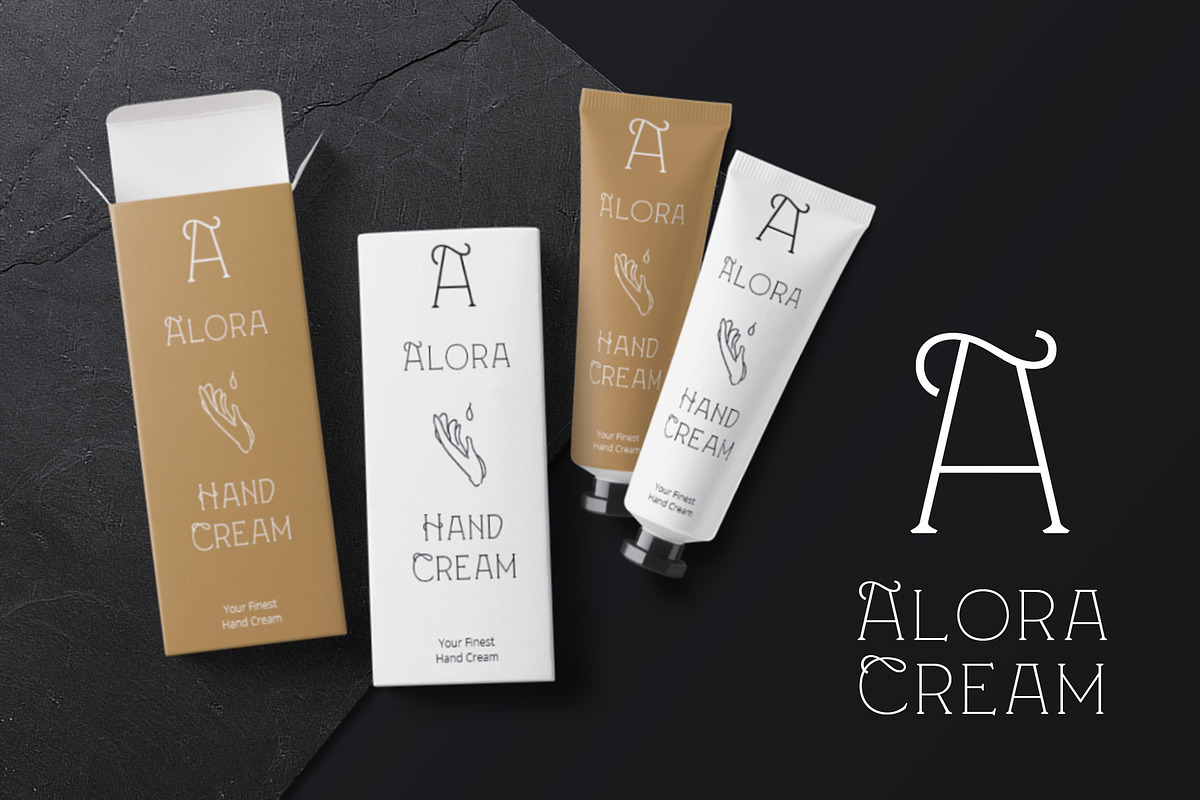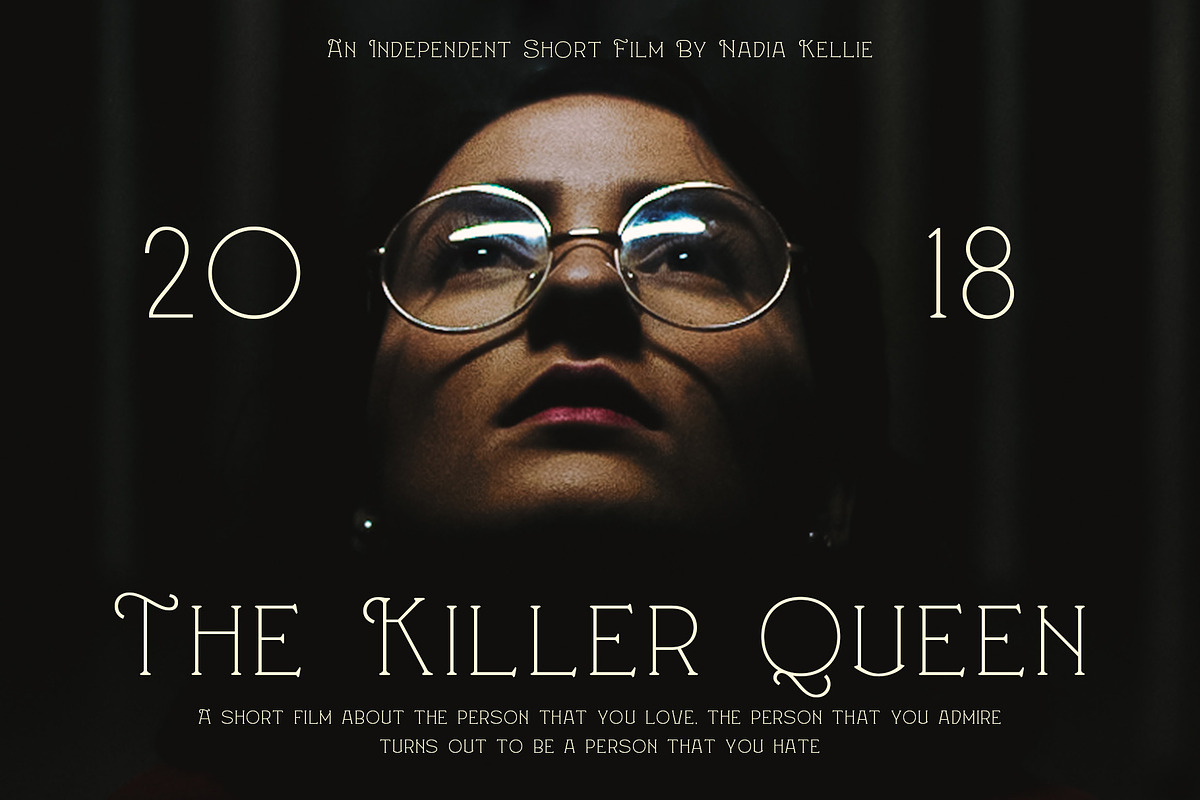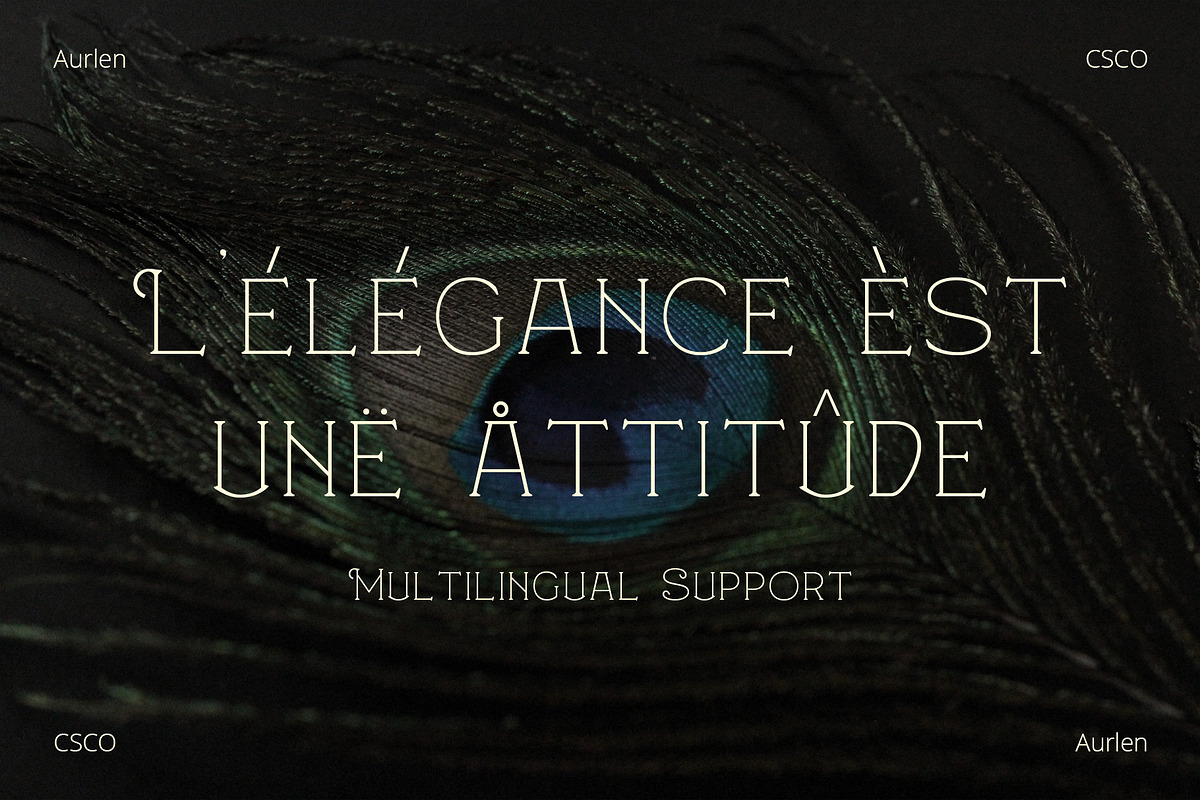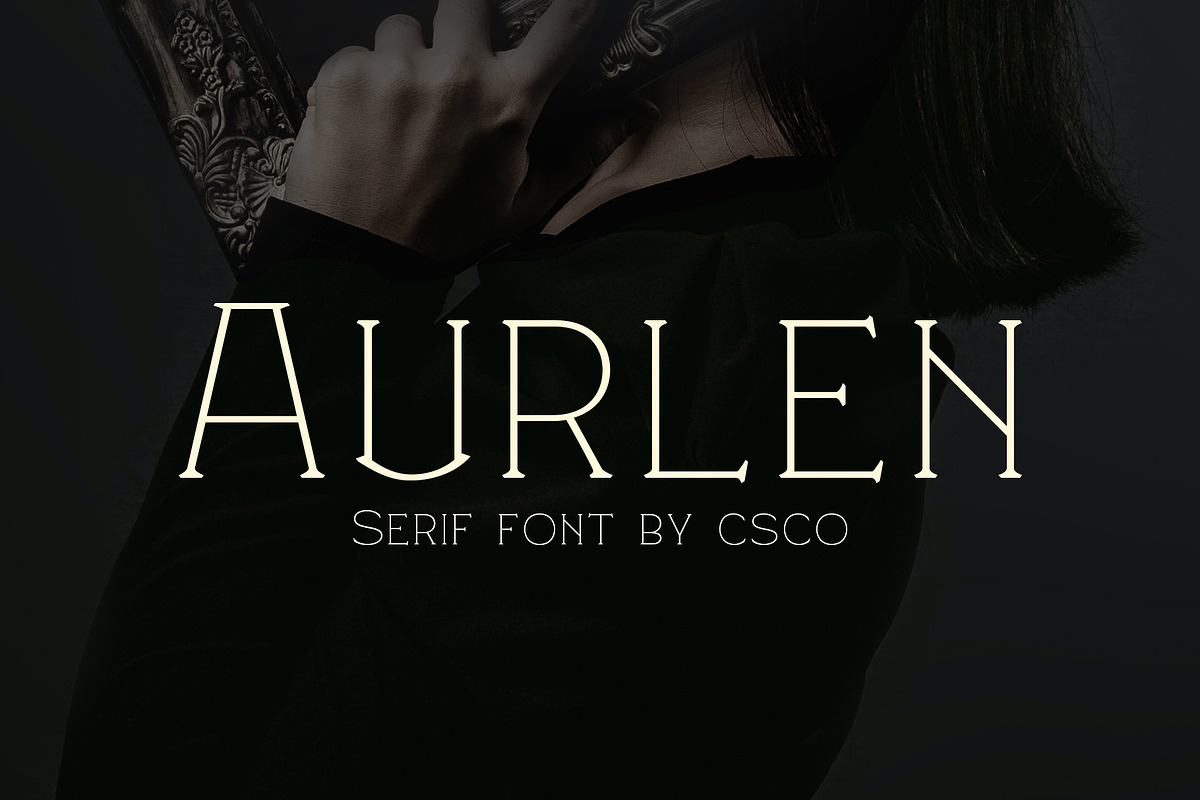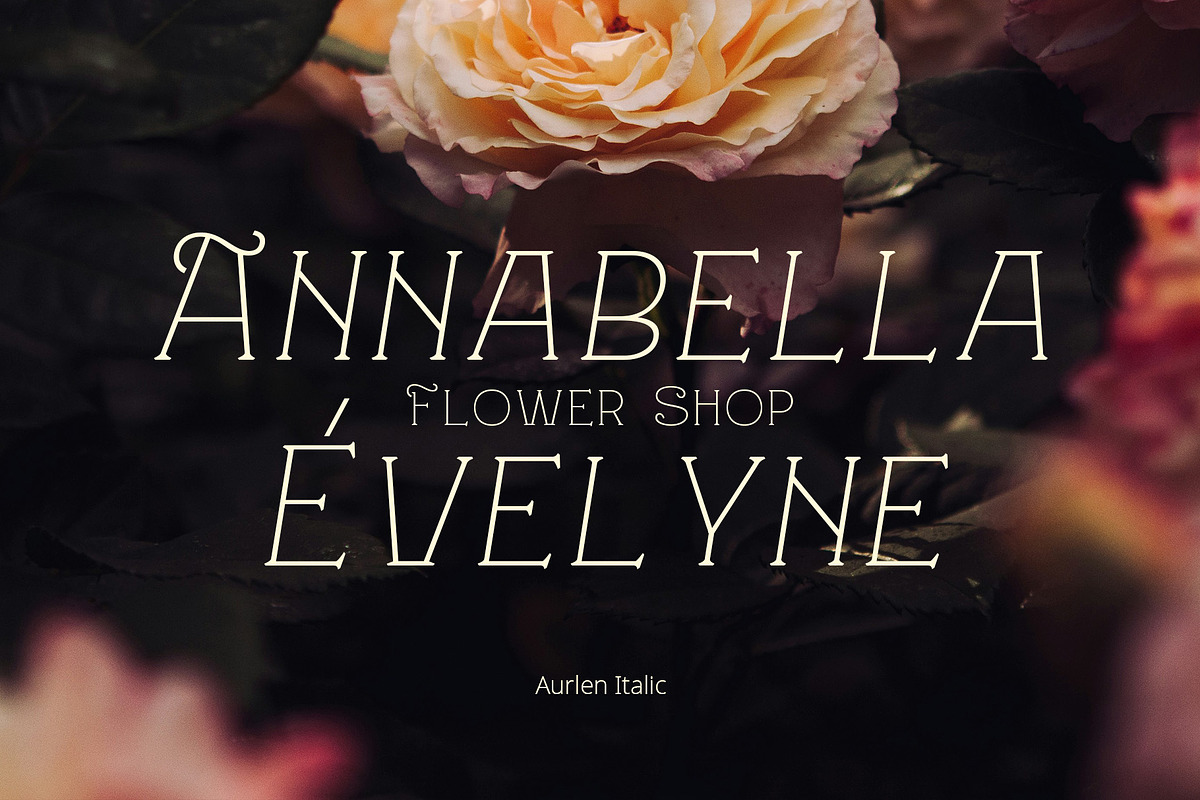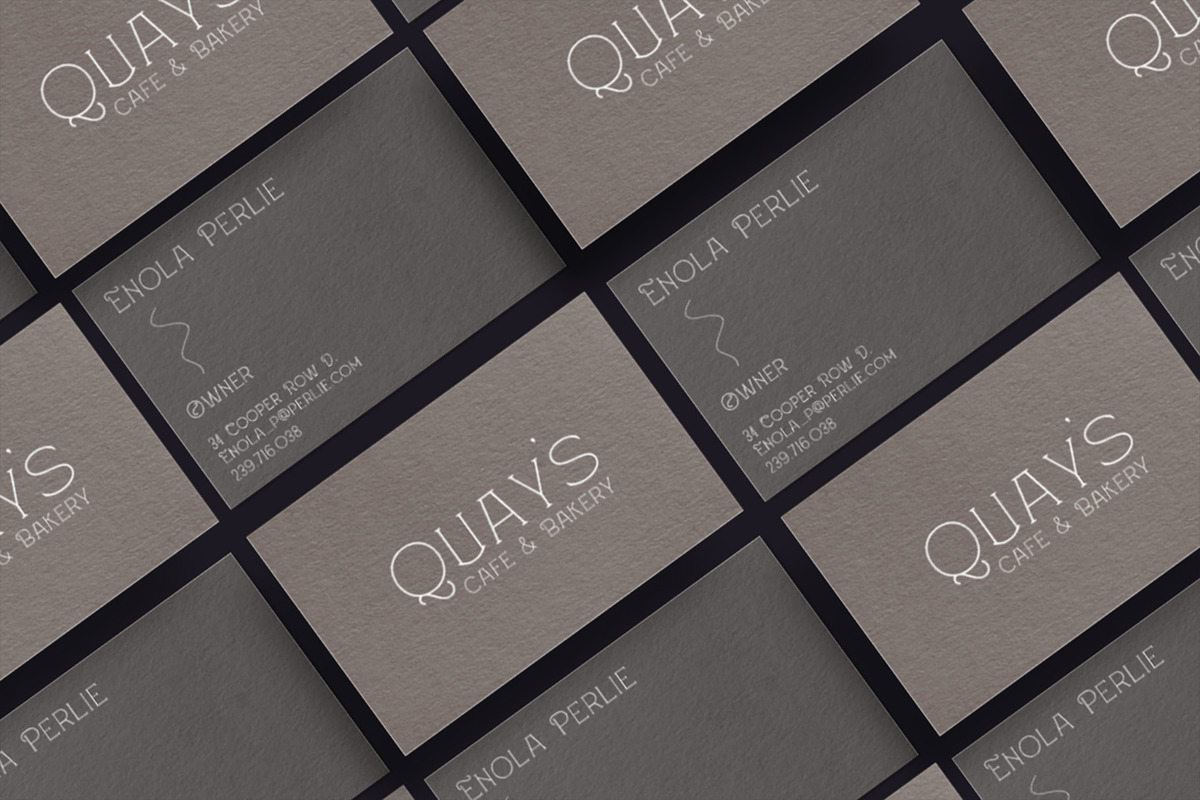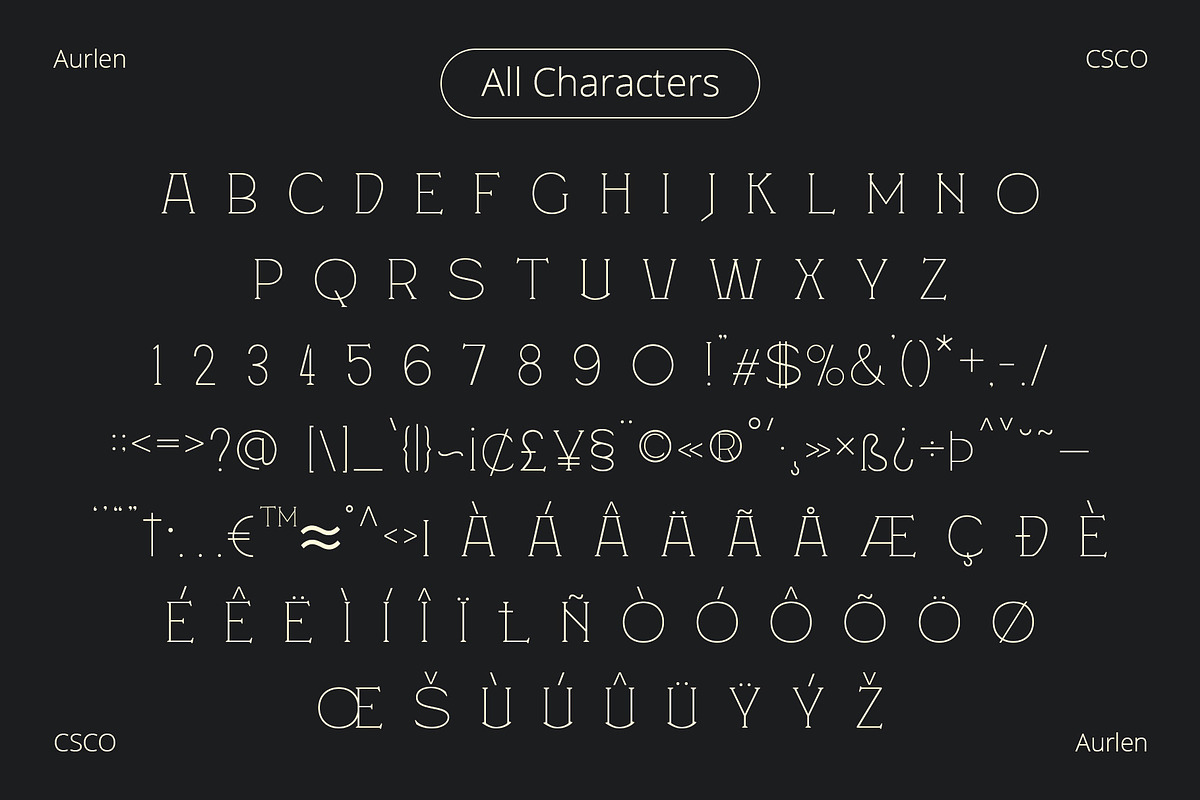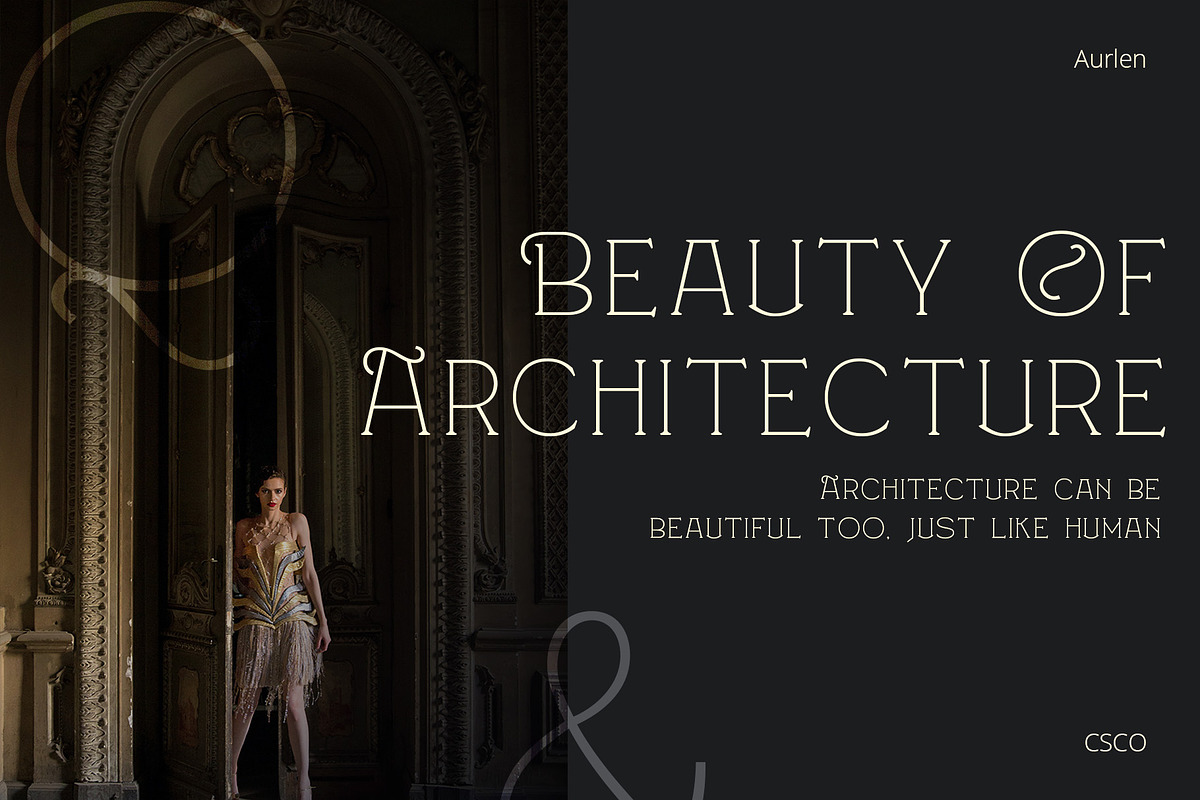
Aurlen – Elegant Serif
Introducing Aurlen – Elegant Serif Font
Aurlen Elegant Serif Font is a delicate serif font designed for luxurious and grand themes. Its minimalistic charm adds sophistication to any project.
Stylish and Minimalistic Aurlen’s thin serifs exude elegance and refinement. Its minimalistic design exerts a timeless appeal, making it perfect for upscale projects.
Luxury in Simplicity With Aurlen, less is more. Its understated elegance elevates luxury branding, invitations, and editorial design. It exudes opulence effortlessly.
Versatile Elegance Aurlen adapts seamlessly to diverse design needs. Its versatility shines in both digital and print media, ensuring a touch of luxury in every application.